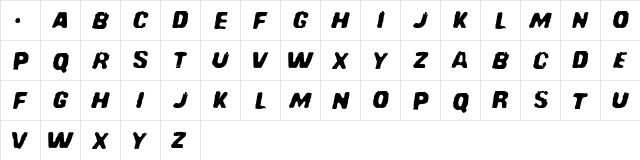
Red Comet Five to Mars Regular
Design Context for Red Comet Five to Mars Typeface
Red Comet Five to Mars is a composed and adaptable typeface that performs quietly and consistently across a wide range of design contexts.
Pro Tip: Use Red Comet Five to Mars in both headline and body roles to test its range before committing to a single application.